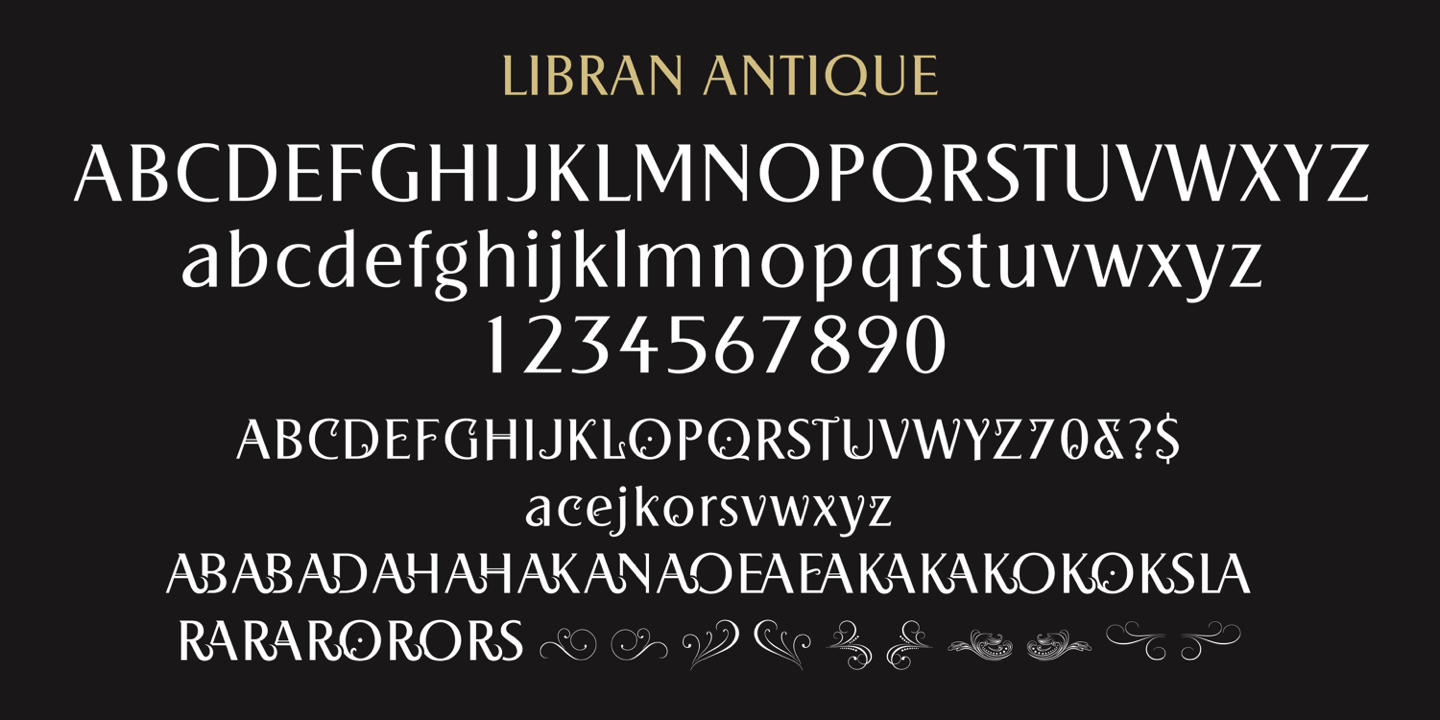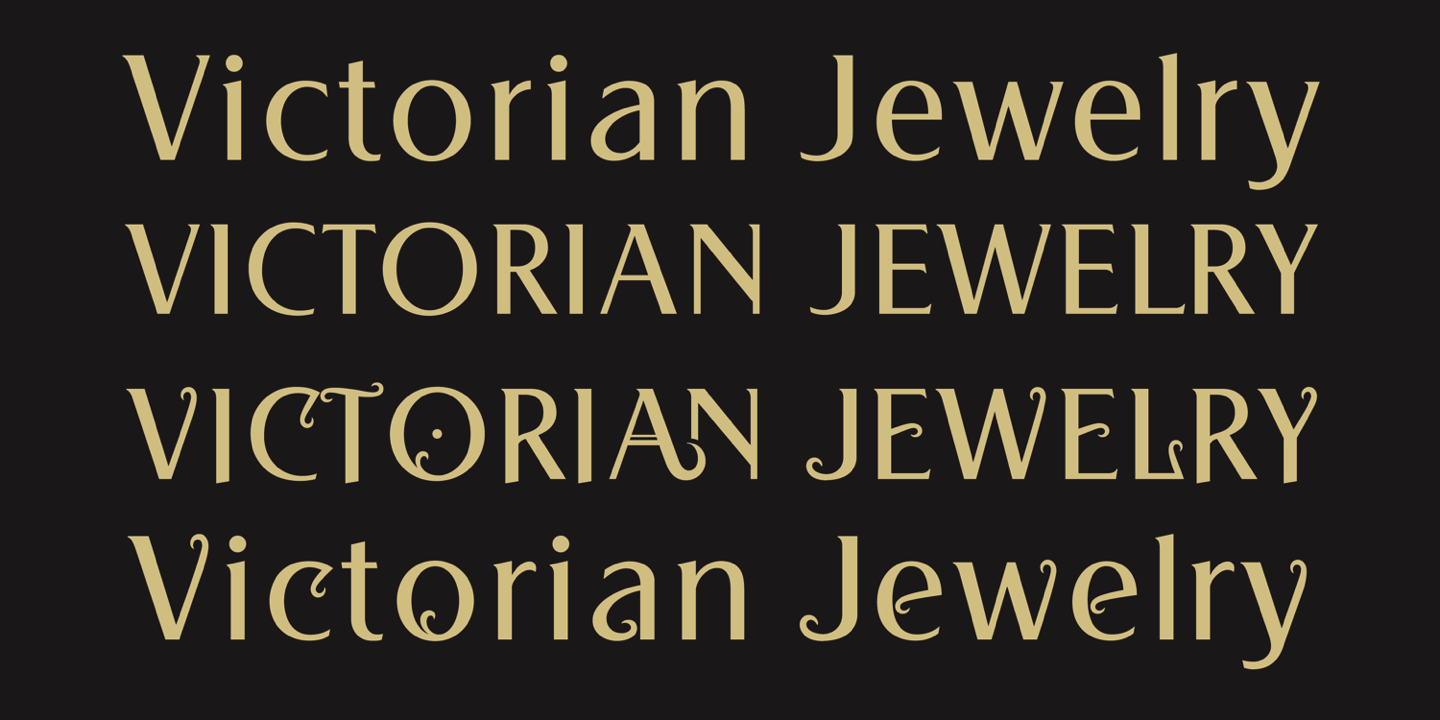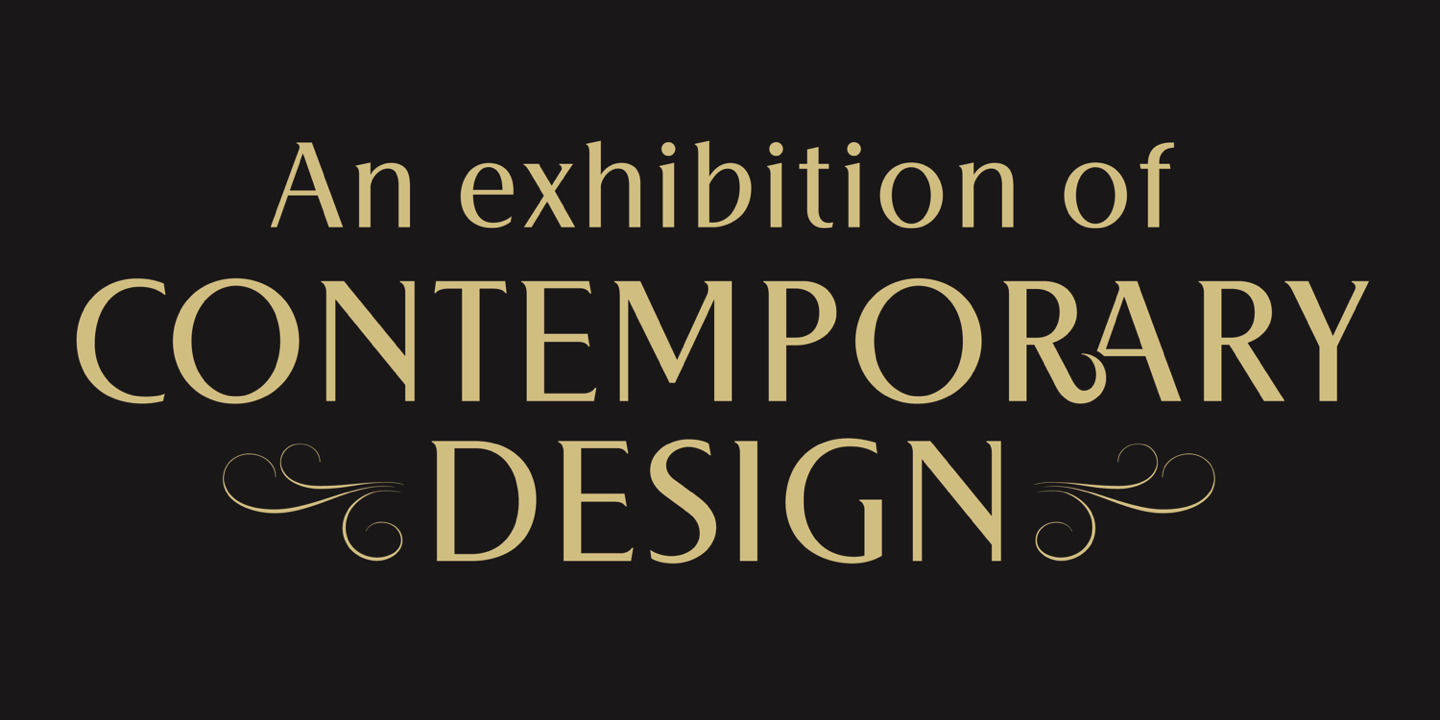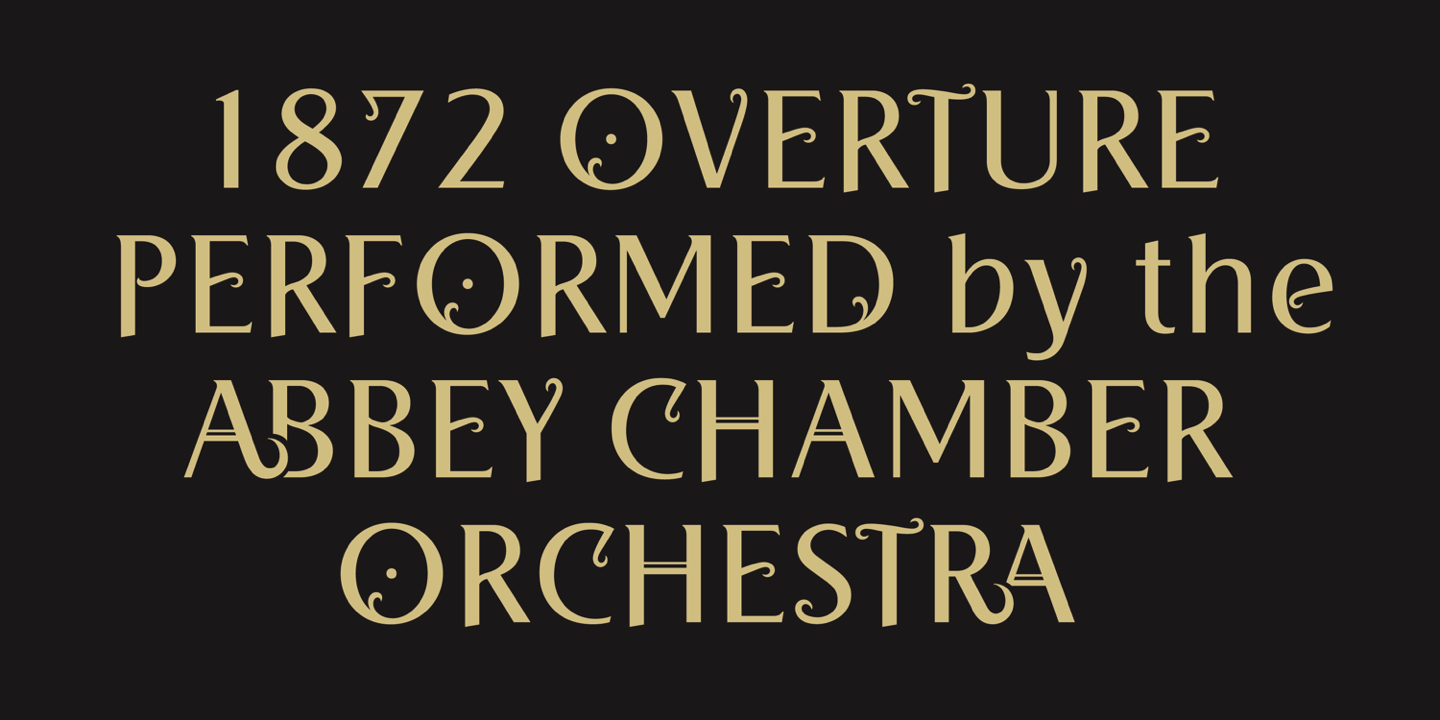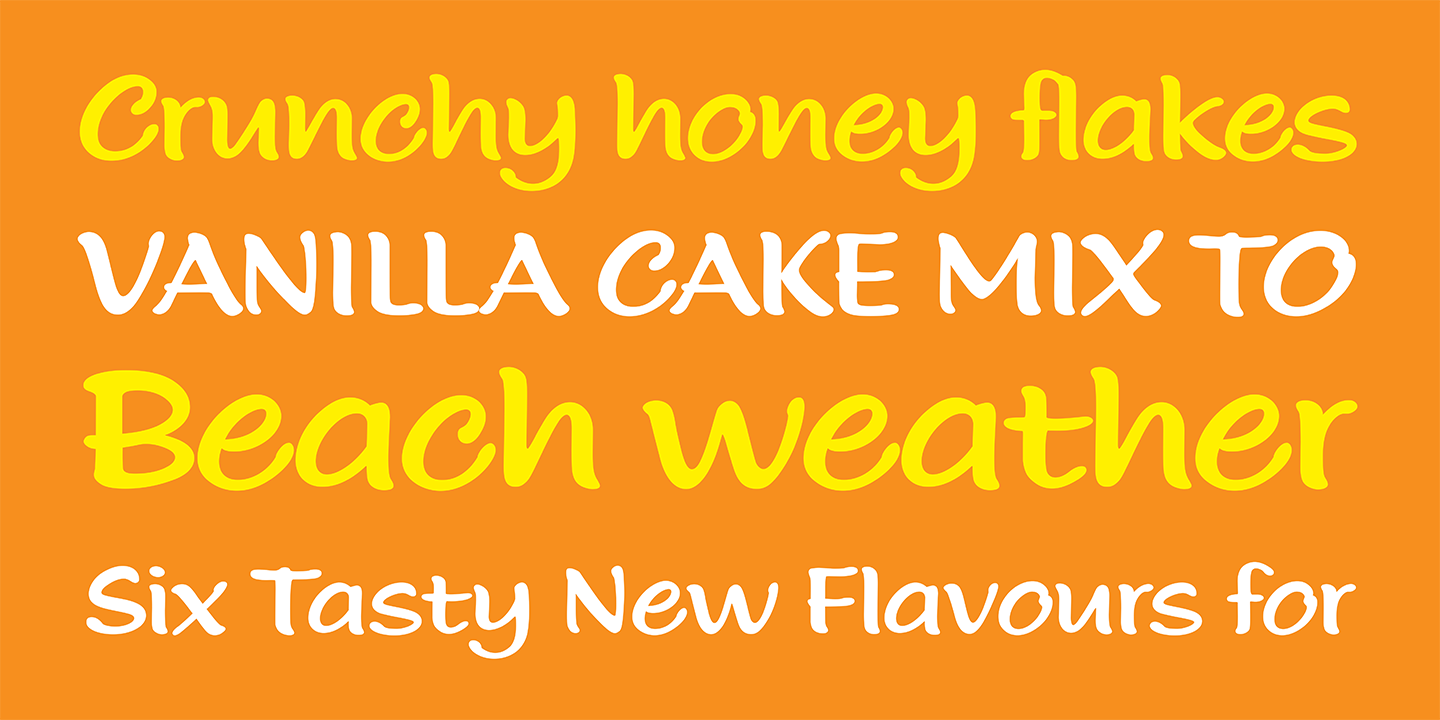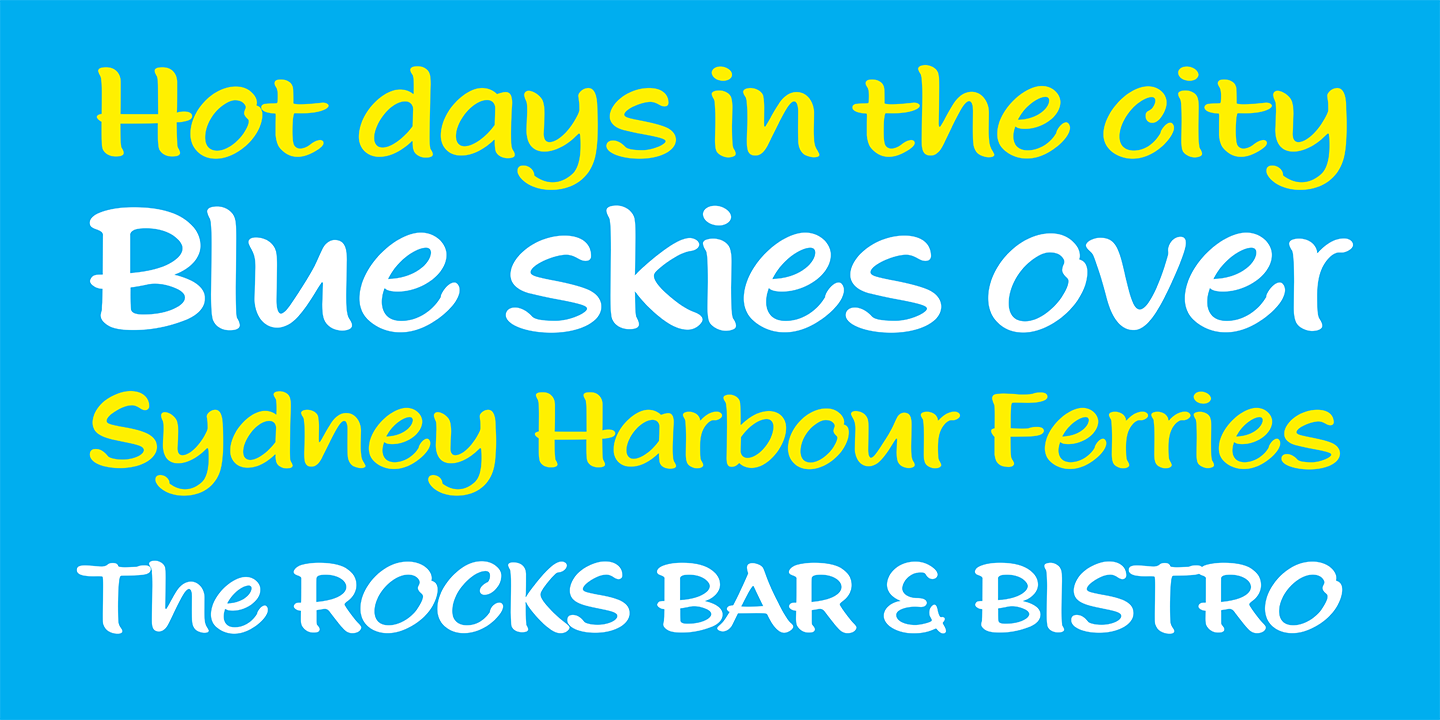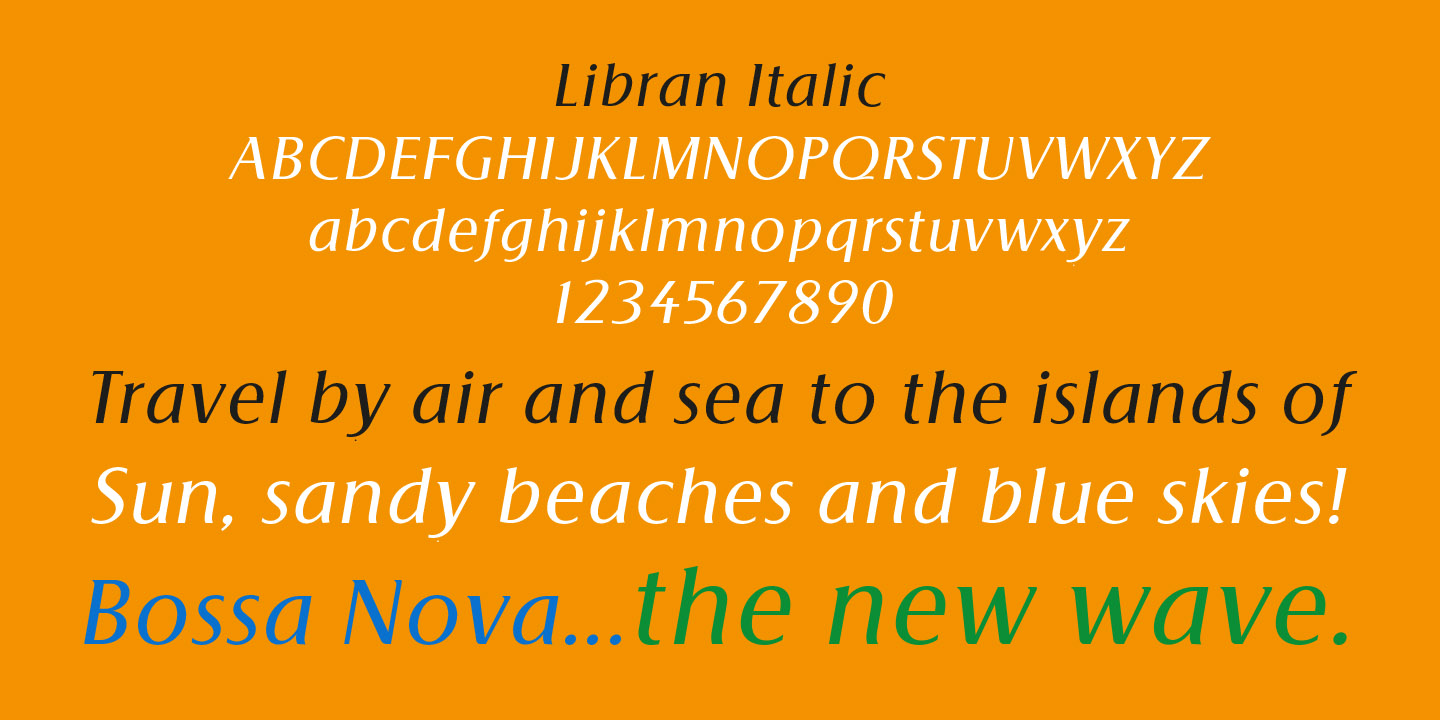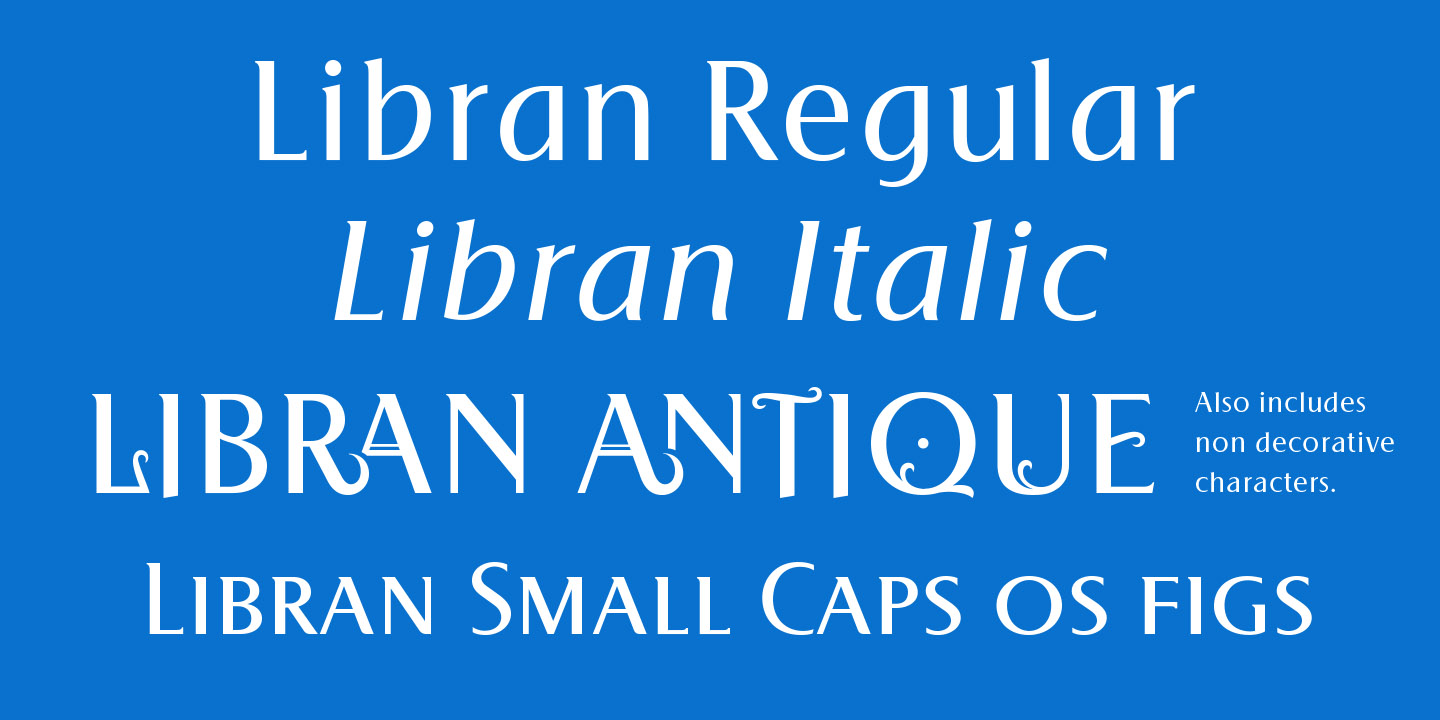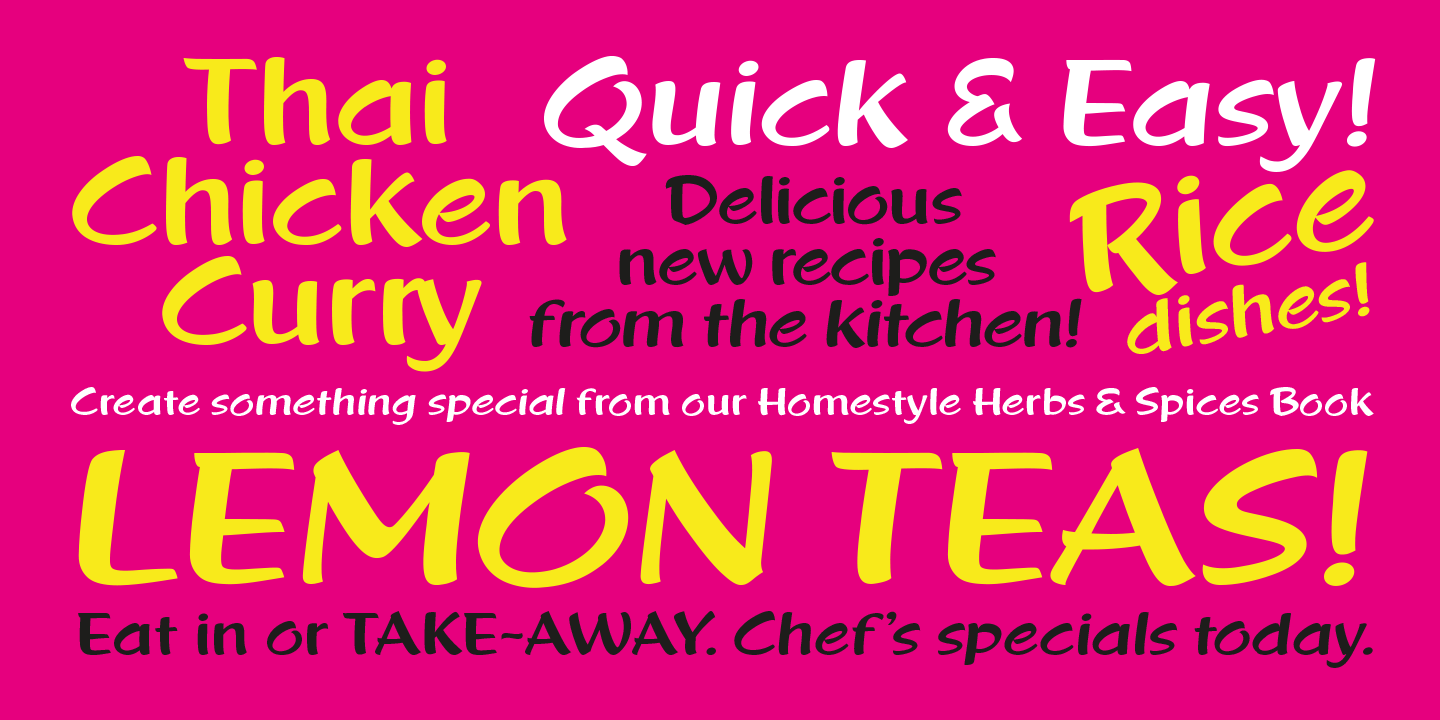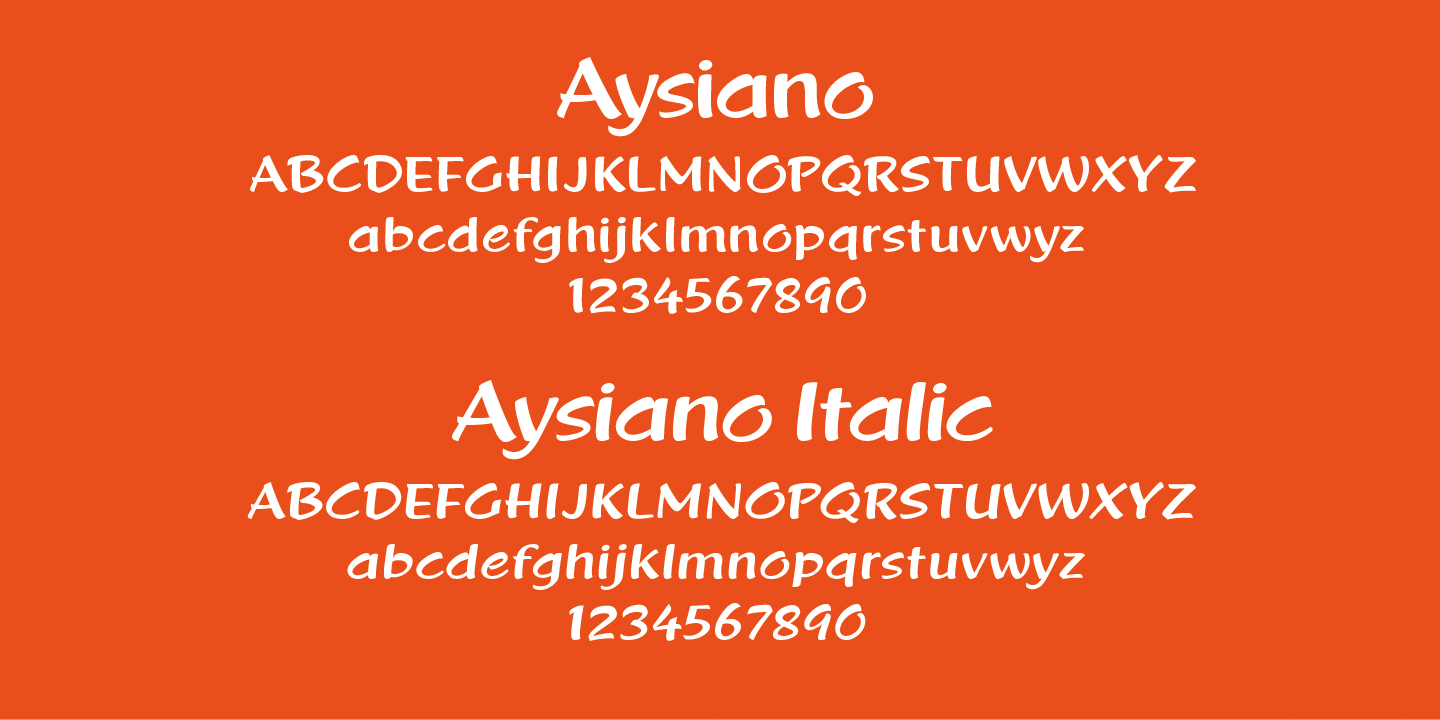
Keith Morris
Keith Morris was born in Sydney, NSW Australia. His first job as a junior artist in 1961 introduced him to the world of Commercial Art and in particular a lifelong interest or you might say a love affair with letters, or to be more precise the letters found in an alphabet. As well as all the other duties of a junior in a budding Sydney art studio there was time in lunch hours to rush up to the State library and find out more about type, typesetting and lettering on a commercial basis. An older member of the studio told him of a book titled ‘Lettering for Advertising’. He was now totally aroused and fascinated by letterforms in all their guises. Practicing and learning at every opportunity led to a meeting with a very well known and local lettering artist. He was inspired by this meeting and that has lasted to this day. Whilst redrawing typefaces on a freelance basis for a photolettering house his interest in graphic design was also developing and a relocation in jobs beckoned and a career in general graphic design commenced with roles as a finished artist, designer and then later a senior designer in one of Sydney’s leading design studios. It was at this stage that his principal joined with him on a project typeface to be entered into the Letraset Letragraphica range. It was excepted and ‘Fino’ was made into a Letraset dry transfer face.